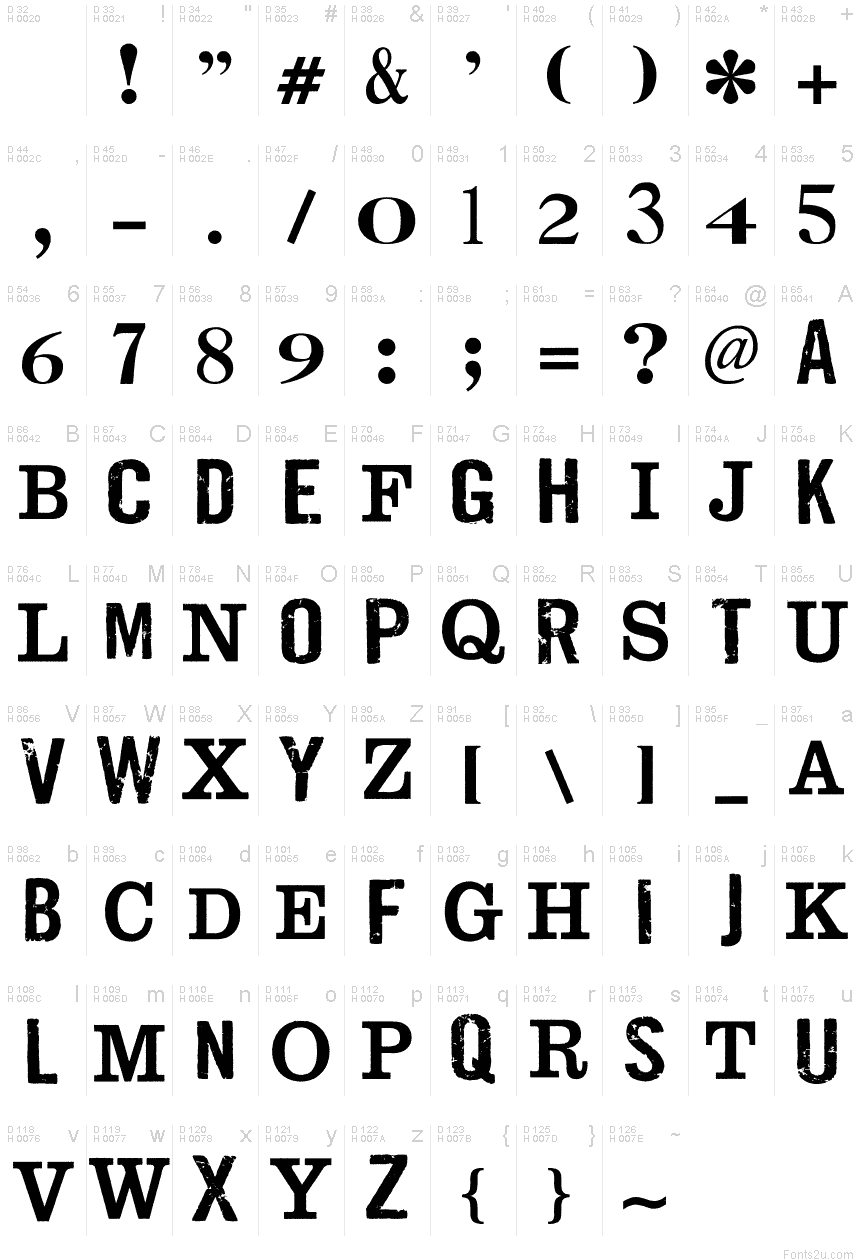
jailbIrD JenNA
Jailbird Jenna font by Typeface is a free eroded display typeface with the bruised, inky heft of a stamp slammed onto rough paper. Thick slab-like letters are chipped, scratched, and uneven, so every word feels like it’s been dragged through concrete. The spacing is tight and punchy, giving headlines a raw, locked-in tension that’s hard to ignore.
Using Jailbird Jenna, you can push gritty attitude into gig posters, horror titles, prison or true-crime graphics, zines, album covers, and streetwear branding. This free font shines when it’s big and bold, letting the scuffs and gaps really show. Pair it with a clean geometric sans for small text to keep layouts readable while the headline does the damage.